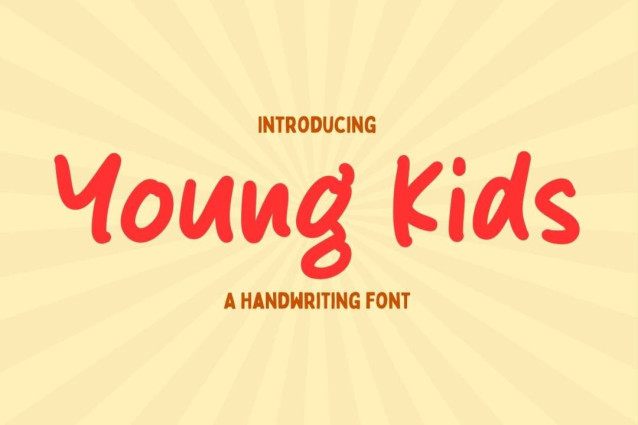
Young Kids Font
Young Kids Font is a simple and friendly handwritten font. Its natural and unique style makes it incredibly fitting to a large pool of designs. The only limit is your imagination!